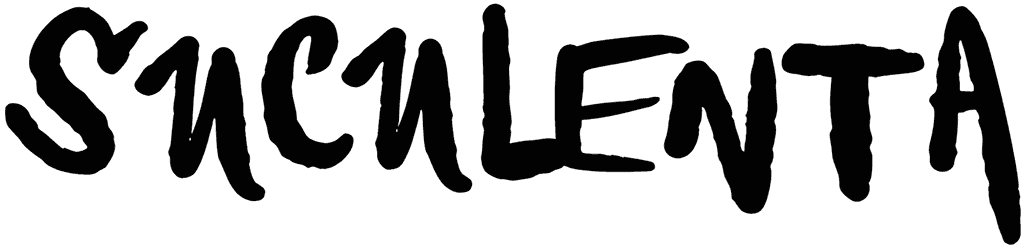
Vtks Suculenta Font
Are you searching for a distinct horror font to design your future project? This hand-lettering font with untidy letters can satisfy you. Even with no offer for lowercase letters and punctuation, Vtks Suculenta will illu…
Are you searching for a distinct horror font to design your future project? This hand-lettering font with untidy letters can satisfy you. Even with no offer for lowercase letters and punctuation, Vtks Suculenta will illustrate your designs, for instance, movie posters, book covers, foregrounds, or any other the same with a creepy and mysterious vibe.